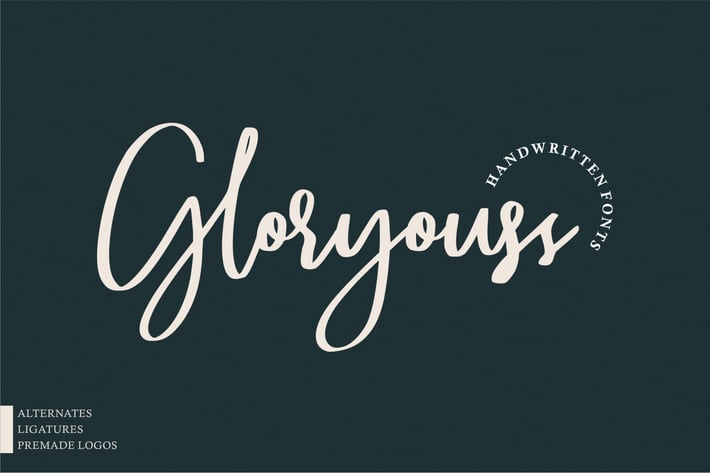
Gloryouss | Handwritten Font
Introducing to the New Handwritten Font: GLORYOUSS
Gloryouss is a natural & modern handwritten font. I'ts perfect for logo, invitation, stationery, wedding designs, social media posts, advertisements, product packaging, product designs, label, photography, watermark, special events or anything. This font include : Jennifer OTF-TTF-WOFF, BONUS PREMADE LOGO and also with Stylistic Alternates.
What's Advantages Gloryouss ?
Very great for branding, logotype, handlettering, invitations, or fashion branding.